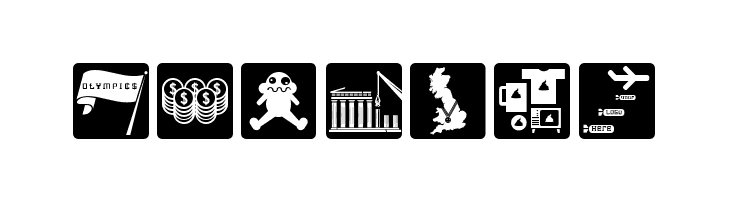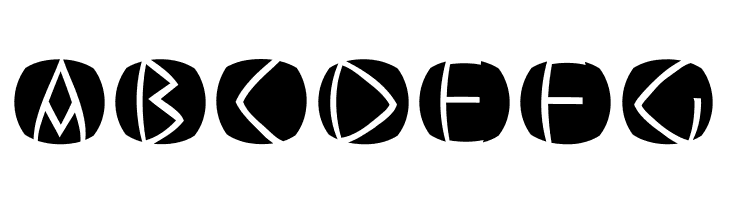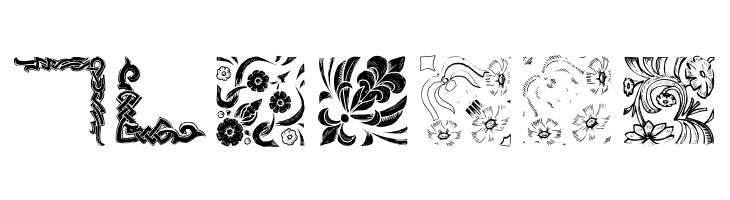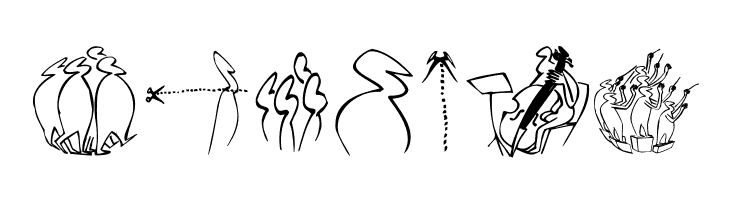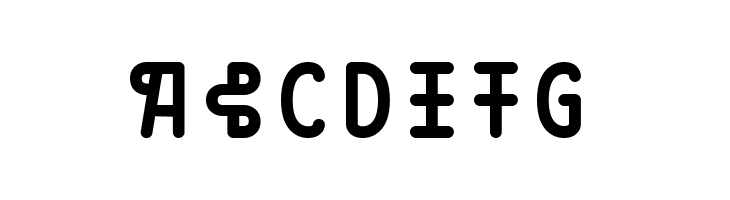
• OhLauri
A playful, illustrative font made of quirky hand-drawn figures.
• OHmygod
A playful and quirky font with unique, rounded character shapes.
• OHmygod Bold
A playful and bold font with rounded, quirky characters.
• OHmygod Light
A playful and quirky font with unique twists and modern flair.
• OldEgyptGlyphs
Ancient Egyptian-inspired decorative glyph set.
• OldEgyptTwo
A decorative font inspired by ancient Egyptian hieroglyphs and symbols.
• OldFramesSymbols
Ornamental symbol set with vintage frames and flourishes.
• OldGreekButtons
A bold, decorative font with characters enclosed in circular shapes, inspired by ancient Greek designs.
• OldTestament
Illustrative, story-driven font with biblical and ancient motifs.
• Olympukes Dark